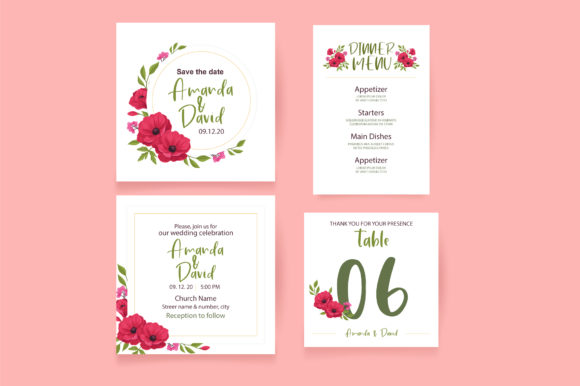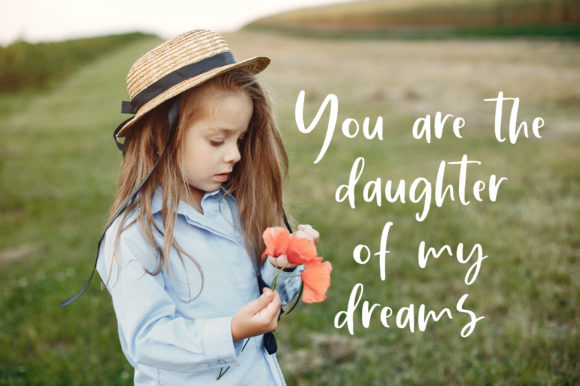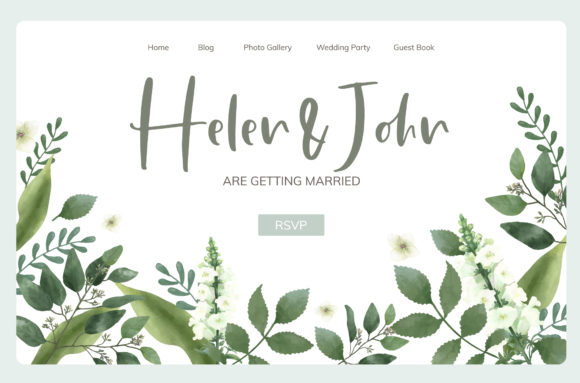
Introduction to Hello Poppy Font
As a designer, have you ever found yourself stuck in a creative rut, desperately searching for that perfect font to elevate your next project? I know I have! It’s those moments of frustration that often lead to the most exciting discoveries – like stumbling upon the Hello Poppy Font. This charming font has captured the hearts of designers worldwide with its adorable simplicity and sweet charm.
With its lovely look and friendly vibe, the Hello Poppy Font is an instant favorite among creatives. Whether you’re working on a free download design or a high-quality commercial project, this versatile font is sure to add a touch of magic to your work. Its transparent background makes it a seamless addition to any design resource, allowing you to focus on bringing your creative vision to life.
As a valuable design resource, the Hello Poppy Font is a must-have for any designer looking to add a little extra something to their next creative project. In this article, we’ll delve into the world of this delightful font and explore its many uses and benefits.
Key Features of Hello Poppy Font
- High-quality font with a unique, playful design that adds a touch of whimsy to any project.
- Transparent background, allowing for easy layering and customization in creative projects.
- Perfect for designing children’s books, greeting cards, and other creative projects where a fun, playful font is desired.
Honest Review: Hello Poppy Font
I recently had the opportunity to work with the Hello Poppy Font, and I must say, it’s a fantastic addition to any design project. This high-quality font is perfect for those looking for a fun and playful touch in their creative endeavors.
Here are some of the things that I liked about the Hello Poppy Font:
- ✨ Beautiful and modern design that’s perfect for a wide range of creative projects.
- ✨ Offers a transparent background, making it easy to use on any color or background.
- ✨ Highly versatile, with a wide range of uses from logos to print materials.
- ⚠️ Limited font styles, so you may need to supplement with other fonts to achieve the desired look.
- ⚠️ Not as extensive as some other font libraries, but still a great addition to any design arsenal.
Overall, I’m really impressed with the Hello Poppy Font. It’s a high-quality design resource that’s perfect for adding a touch of whimsy to your creative projects. With its free download option and transparent background, it’s an excellent choice for designers of all levels.